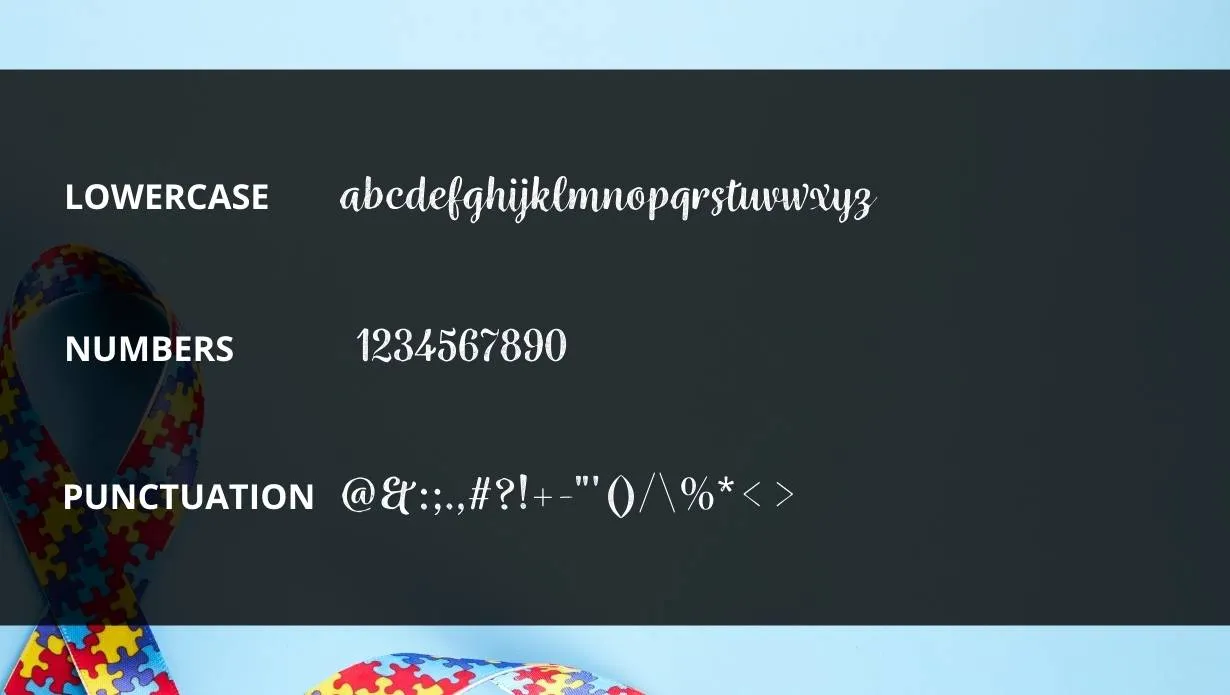
Wreath Font Free Download
Wreath Font is a decorative font that was created by weknow in 2009. It was inspired by the wreaths that are often used to decorate houses during the Christmas season.
If you are looking for a festive, Christmas-themed font for your next project, then be sure to check out the Wreath Font. The texturing of this typeface is great to work with the pairing of Proxima nova font.